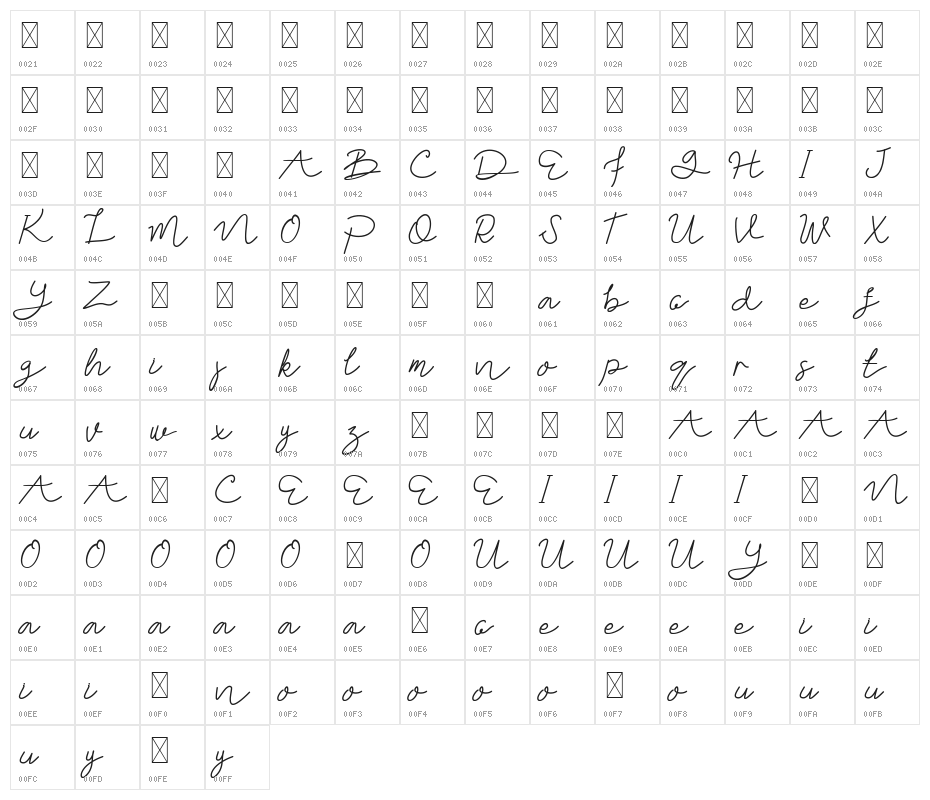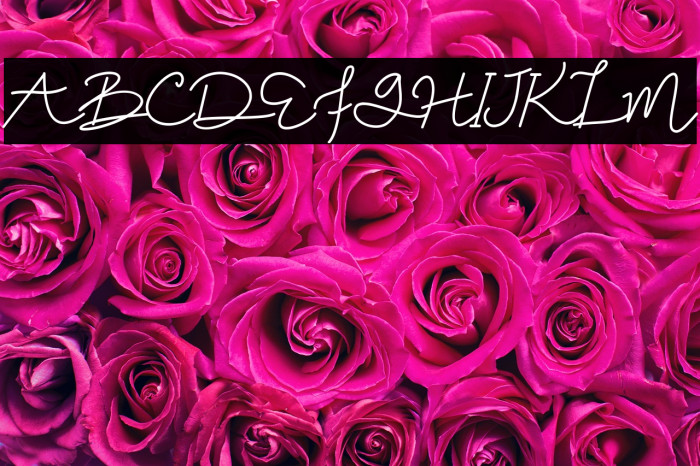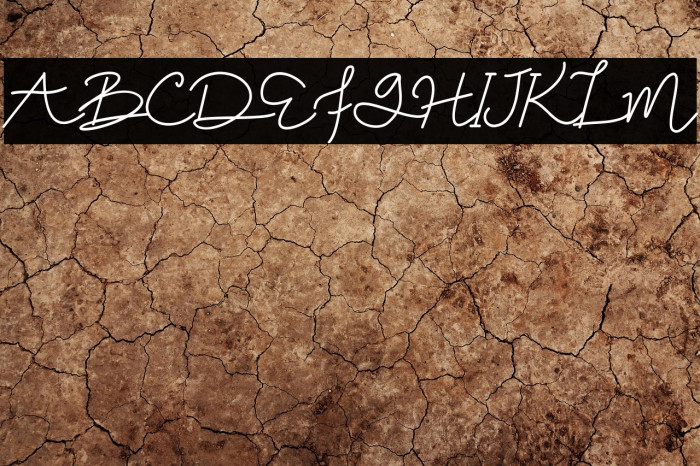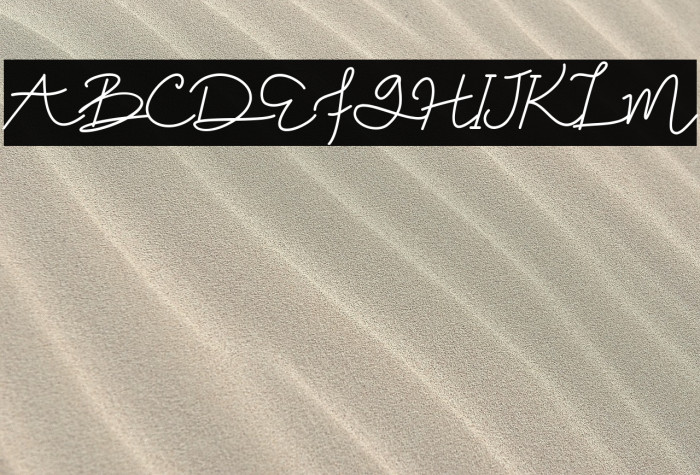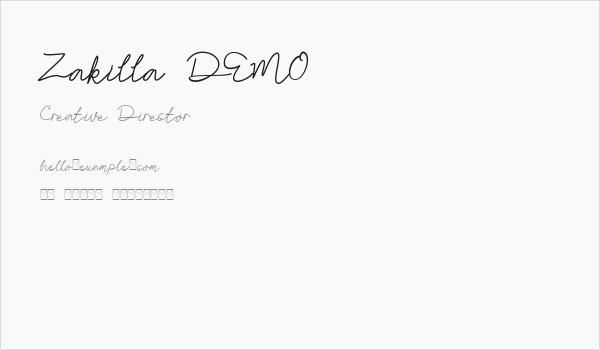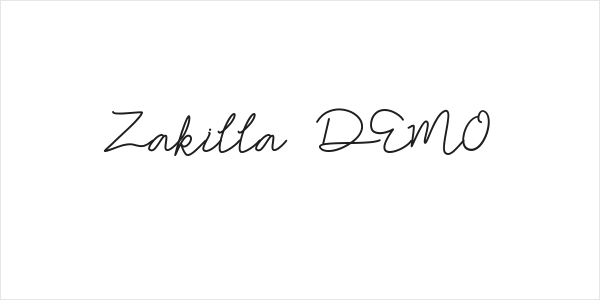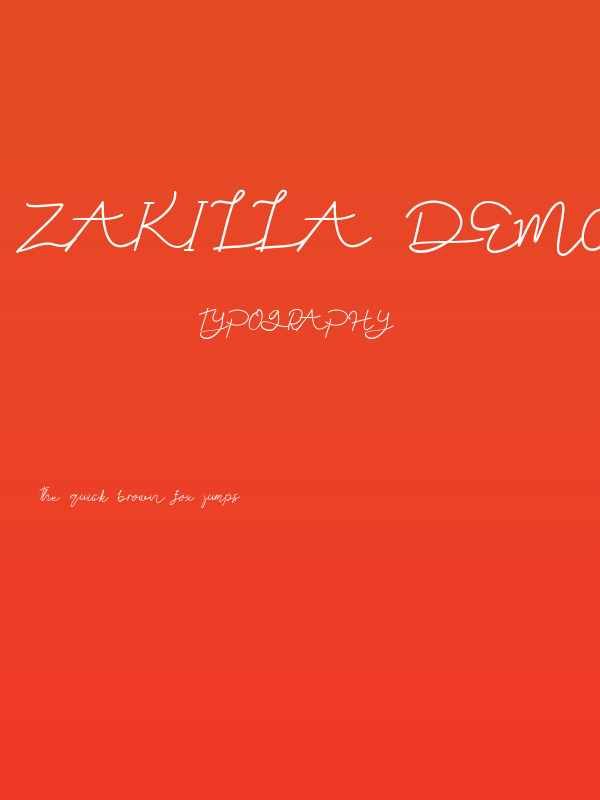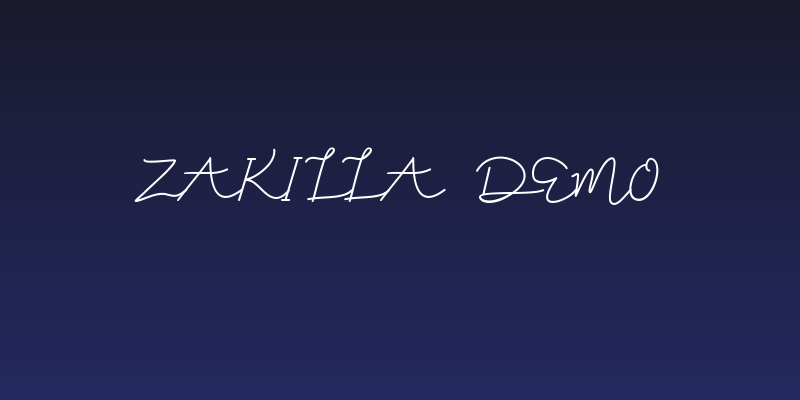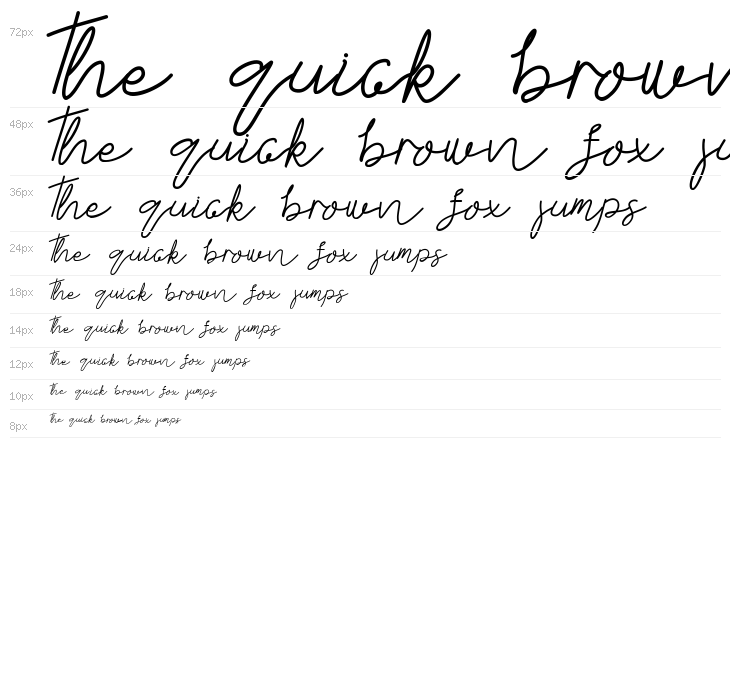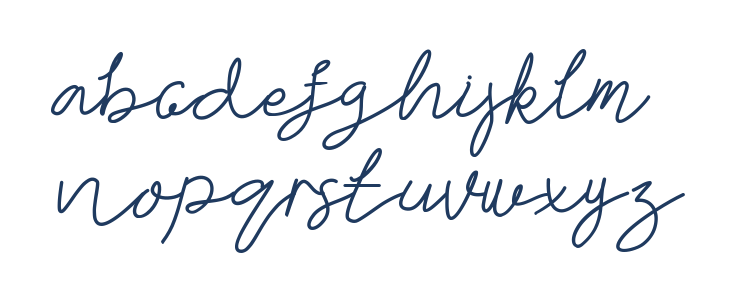
Zakilla DEMO Font
Zakilla DEMO Description
This font features a flowing, cursive style that mimics elegant handwriting. The letters are interconnected, creating a seamless and fluid appearance. The uppercase characters are slightly larger and more pronounced, while the lowercase letters maintain a consistent height, enhancing readability. The font's strokes are smooth and continuous, with a moderate contrast between thick and thin lines, adding to its graceful aesthetic. The overall design is sophisticated and stylish, suitable for projects that require a personal and artistic touch.
| Overall Style | Elegant, Artistic |
| Proposed Projects | Ideal for wedding invitations, greeting cards, personal branding, and artistic projects. |